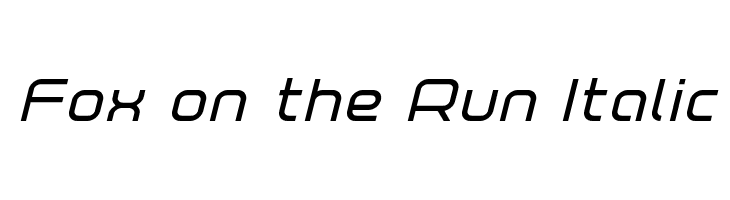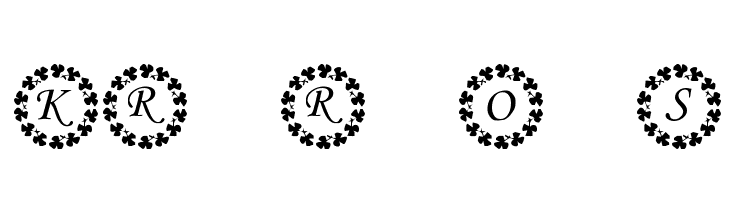
A decorative serif font with floral-bordered characters, ideal for elegant designs.
A bold, angular, and italic font with a futuristic and condensed style.
A bold, playful font with rounded edges and a slight italic slant.
A hollow, antique-retro font with bold geometric outlines and intricate details.
A playful handwritten font with fluid, dynamic strokes and a casual style.
A bold, playful script font with flowing, rounded letterforms and decorative swashes.
A bold, angular font with a gothic influence and dramatic flair.
A dynamic and flowing script font with elegant cursive letterforms.
A lively, expressive handwritten font with dynamic strokes and playful loops.
Bold, legible music notation font for scores and teaching.